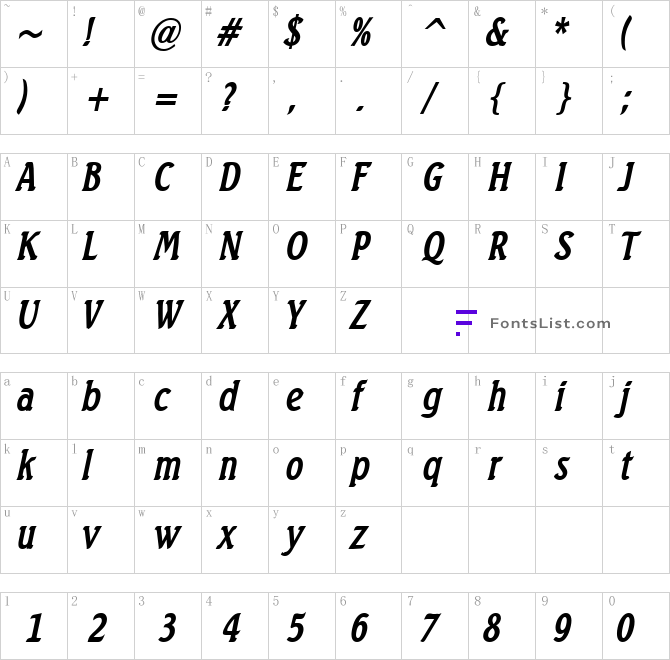
- Font Name:Beach-Condensed
Beach-Condensed-Bold-Italic1-.ttf is a very beautiful artistic font, Beach-Condensed-Bold-Italic1-.ttf is widely used in the design and printing of various books and pictures,Beach-Condensed-Bold-Italic1-.ttf has a strong visual impact,Beach-Condensed-Bold-Italic1-.ttf is a commonly used font in newspapers, magazines and books, and is used in posters, e-commerce Poster design, store design, logo design, font design and other fields.Beach-Condensed-Bold-Italic1-.